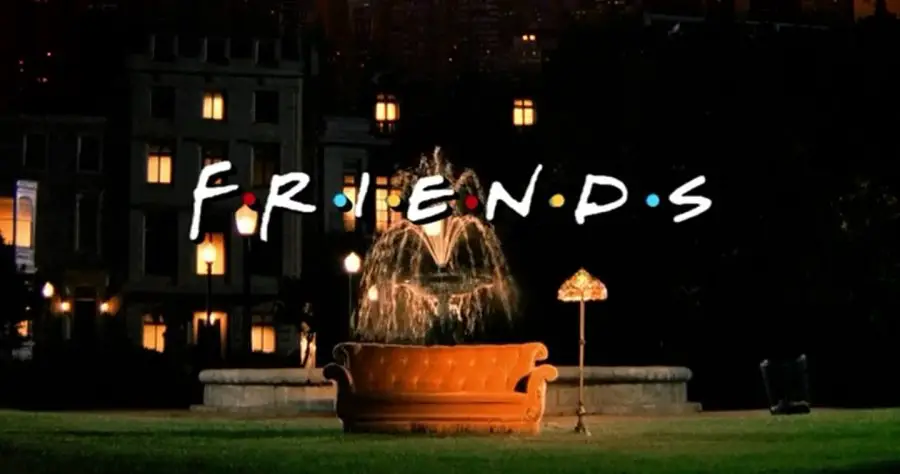
Whoever has never heard of the hit TV show Friends must be living in a cave! Who can forget that eye-catching tune, humoristic one-liner puns, and lest we mention – the iconic Friends logo?
Written in an eye-catching, friendly, playful, and inviting typography that has certainly stood the test of time, the Friends font is now up for grabs for die-hard fans and everyone beyond.
You can incorporate the awesome Friends font into your business and marketing endeavors to watch the magic unfold. Grab the attention of readers and sell more products with the help of the official and awesome Friends font in your own designs!
But first, let’s read a bit more about this great font type – and find out exactly how you can use it to the advantage of your business.
What is Friends Font?
The famous Friends font, also known as Gabriel Weiss’ Friends – is popularly and consistently used in modern culture as the face of trendy shirts, hoodies, and other fashionable accessories the world over.
Perhaps one of the most-loved TV series of the ’90s, Friends was star-studded with names like Jennifer Aniston, David Schwimmer, Courteney Cox, Matt LeBlanc, Lisa Kudrow, and Matthew Perry. The iconic Friends logo shown at the beginning of every Friends episode is famously written in the official Friends font, originally written by a guy called Gabriel Weiss.
About Friends Font
The story of the TV show Friends follows a group of friends in their 20s and 30s through their struggles trying to live and settle down in Manhattan, New York City. With its very first episode on September 22, 1994, the famous show ran for ten consecutive seasons, ending on May 6, 2004.
The actual font used for the intro and logo of the show is called Gabriel Weiss’ Friends by, of course, Gabriel Weiss. Today, the font itself is free for personal use by anyone and everyone. As an interesting side note, the colorful dots in between the letters were added based on the design by Deborah Naysee.
These iconic dots are actually not included in the font itself but were added to the logo for added visual impact. Evidently, the producers of the show just thought it would make the final logo of the series appear friendlier to the viewers – and we bet they were right!
Usage of Friends Font
The Friends font has been replicated innumerable times since the start of the hit TV show itself – in marketing attempts to personify the very look and feel of the Friends logo that attracted countless loyal fans and viewers across the world.
The Friends font style is similar to handwriting and crayon, which indicates its friendliness. You can use this font to create eye-catching ads, brands, and title cartoons. The usage of Friends font on merchandise of many different types has become increasingly popular – and people can’t seem to get enough of it!